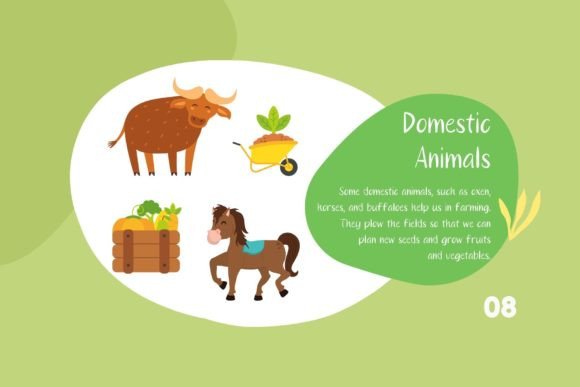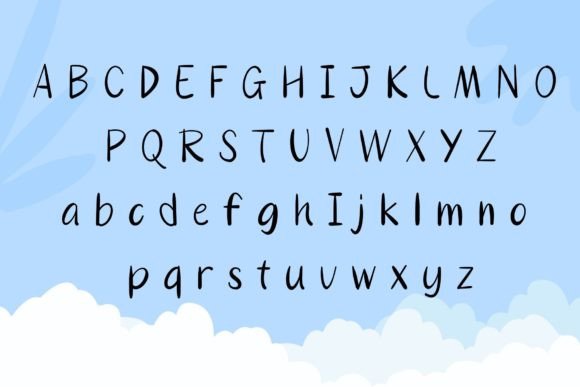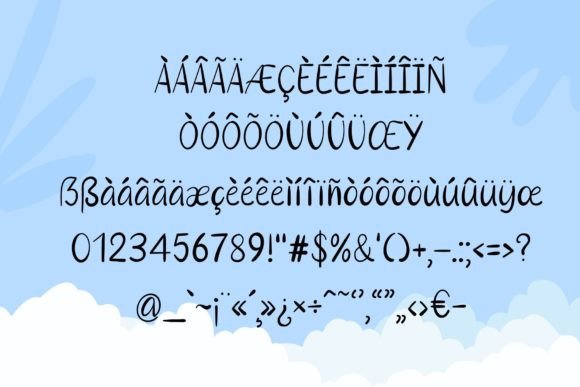
Introduction to Sephera Font
Sephera is a cute, handwritten font.
This playful sans-serif will look so good on your invites, cards, logos, and any other fun projects you are working on .
Key Features of Sephera Font